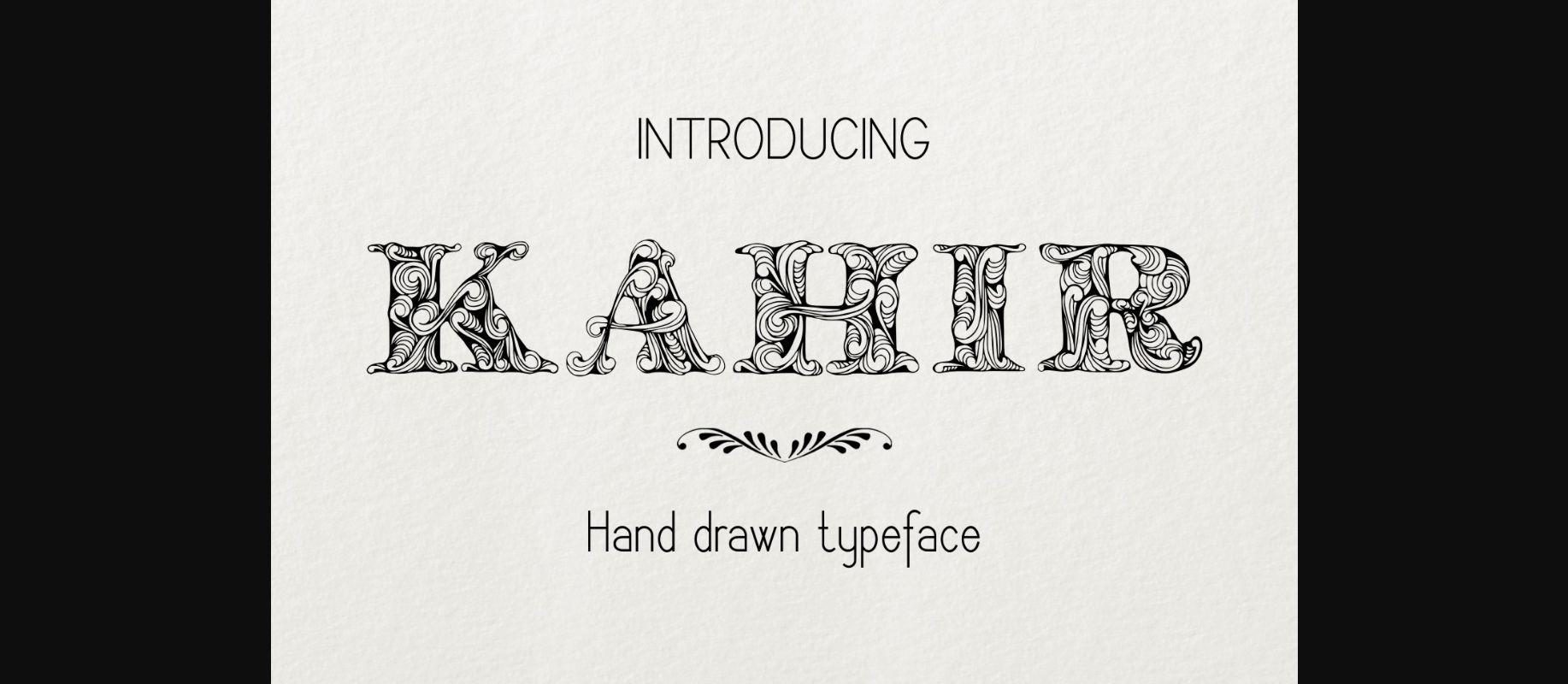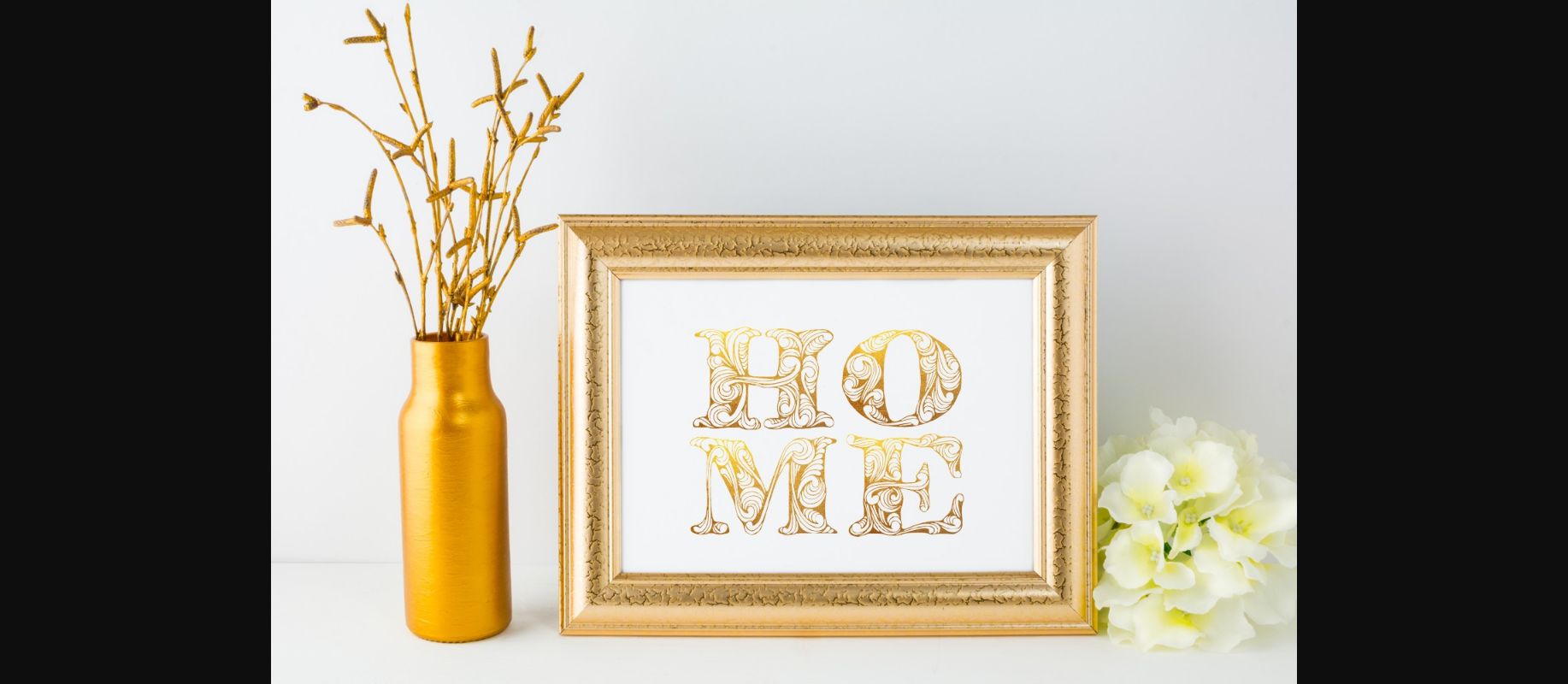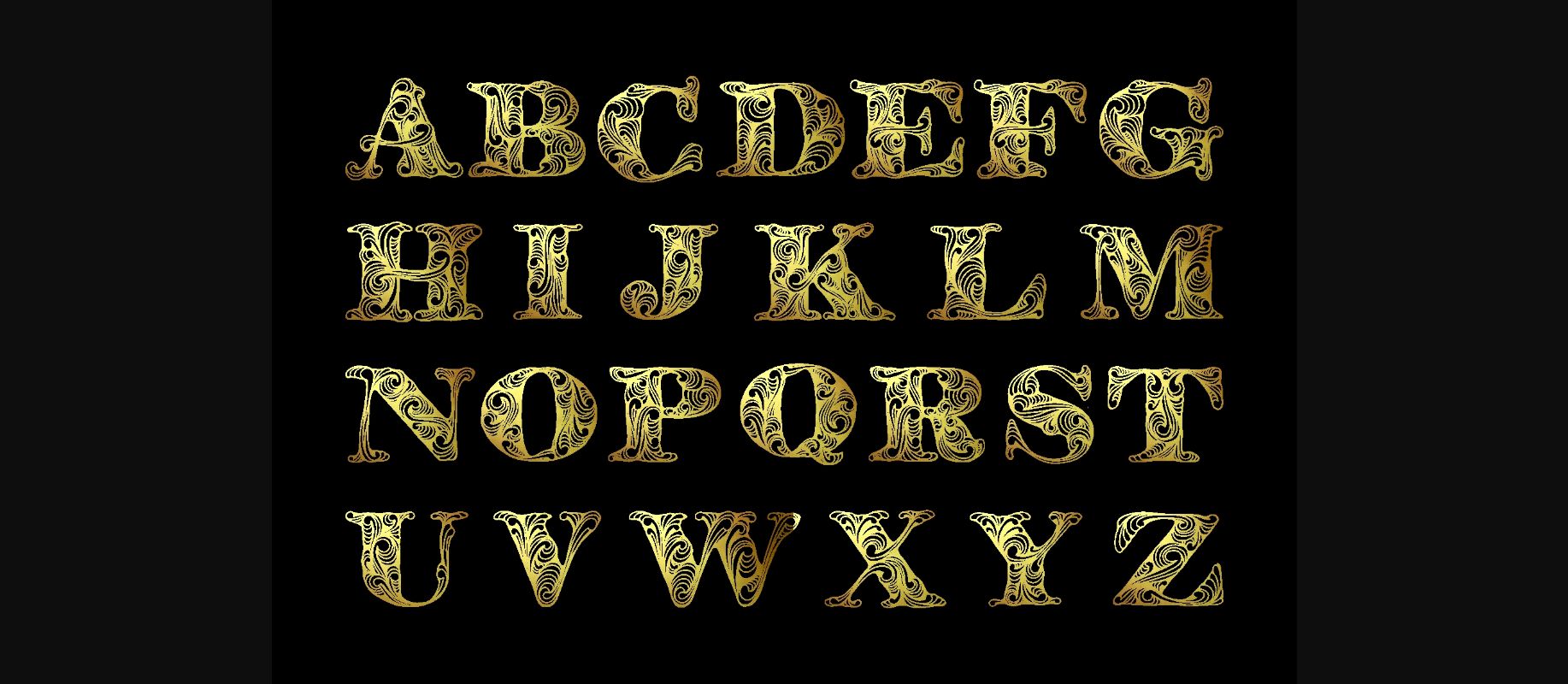
About Kahir Font
Kahir is a hand drawn decorative fonts that is great for initials, monogram embroidery and adding decorative letters to designs such as menus, invites, shirts, etc.